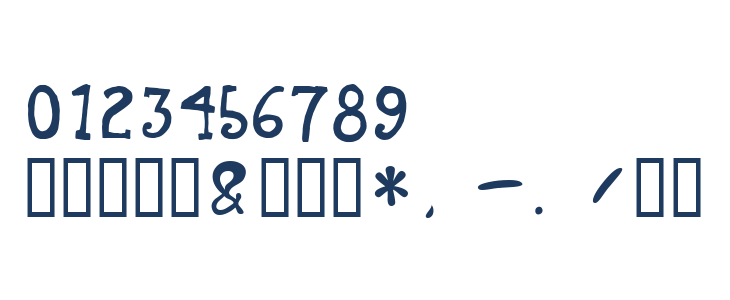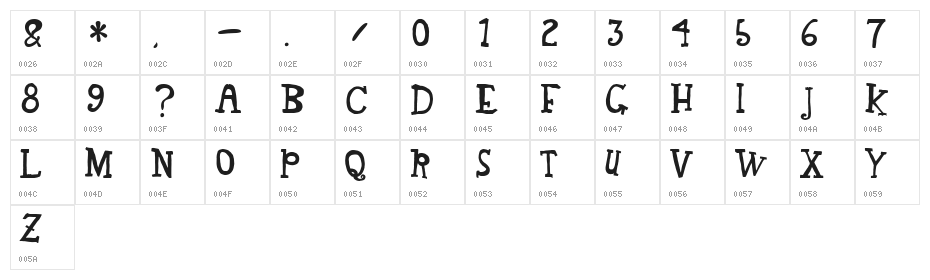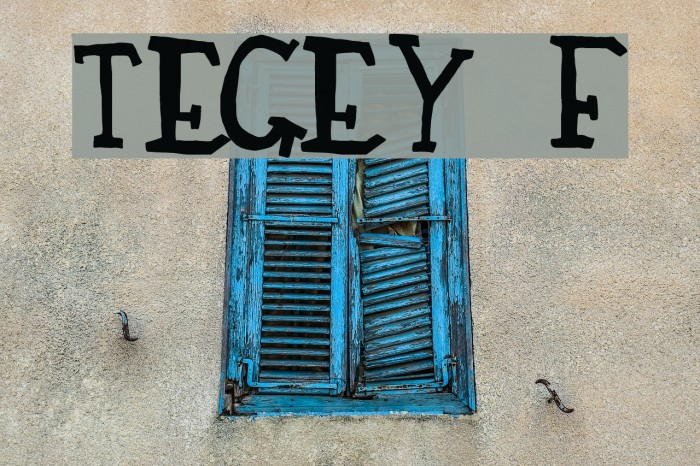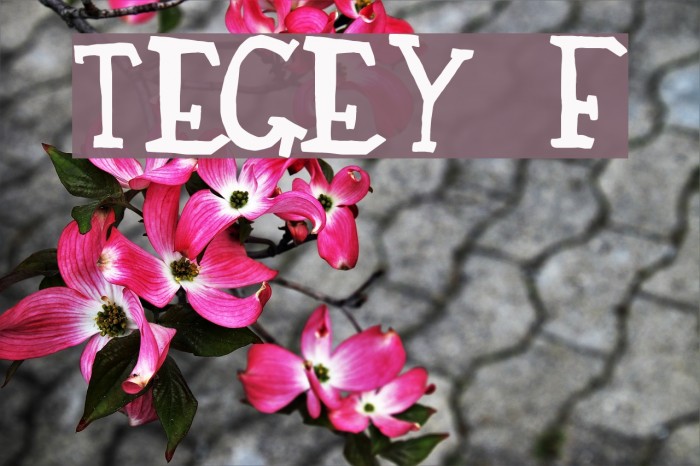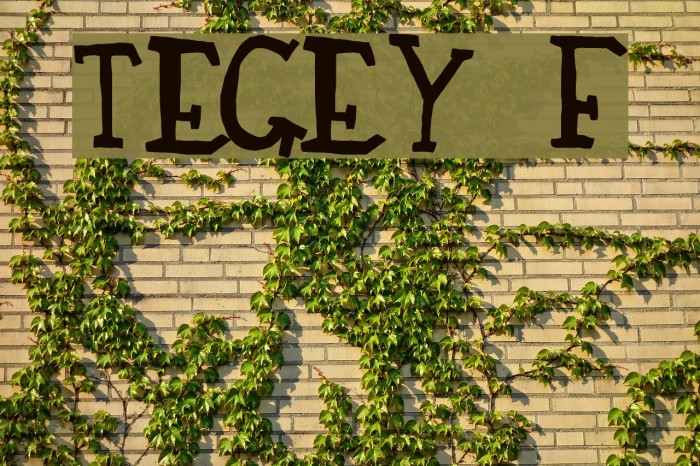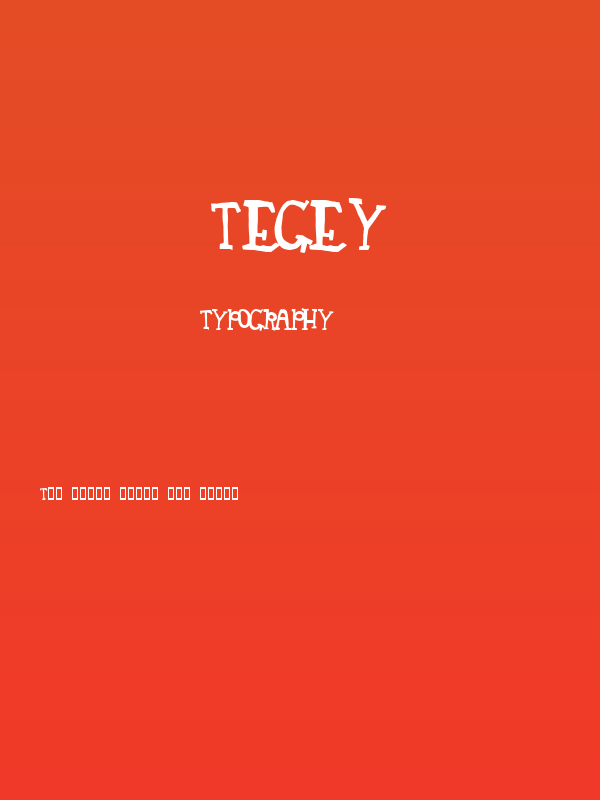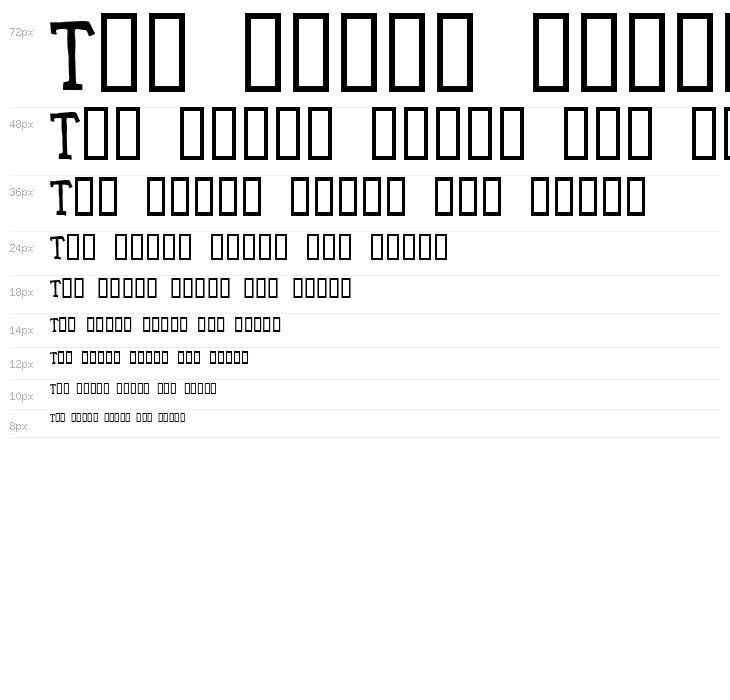
TEGEY Font
TEGEY Description
This font features a bold and expressive style with a hand-drawn appearance. The uppercase letters are characterized by uneven strokes and a playful, almost whimsical design. The lowercase letters continue this theme, offering a casual and artistic feel. Numbers are similarly styled, maintaining the hand-crafted look. The special characters, including punctuation and symbols, are integrated seamlessly into the design, enhancing its unique aesthetic. This font's irregularities and bold presence make it stand out, ideal for creative and informal projects.
| Proposed Projects | Ideal for creative projects such as posters, invitations, and artistic branding. It can also be used in children's books or any design requiring a casual, handmade touch. |